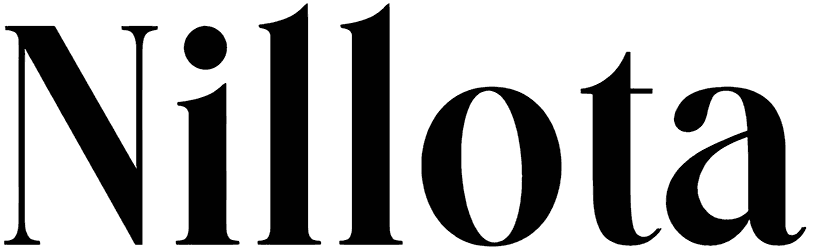
Nouvelle Vague Font
Supplying authentic and reliable ambiance to your writing design is an incredible chance that comes to pass just through this serif font. Nouvelle Vague font has arisen with both edgy and sharp ends designs that can relive classical vibes in your typography.
The notable traits of this formal font are the thin lines in the heart of its chunky design that will make it a more distinctive look in designing many headlines, fashion, magazines, and posters.
A new creation of a extreme didone typeface. FOR PERSONAL USE ONLY.
Designed by: Dirk Schuster